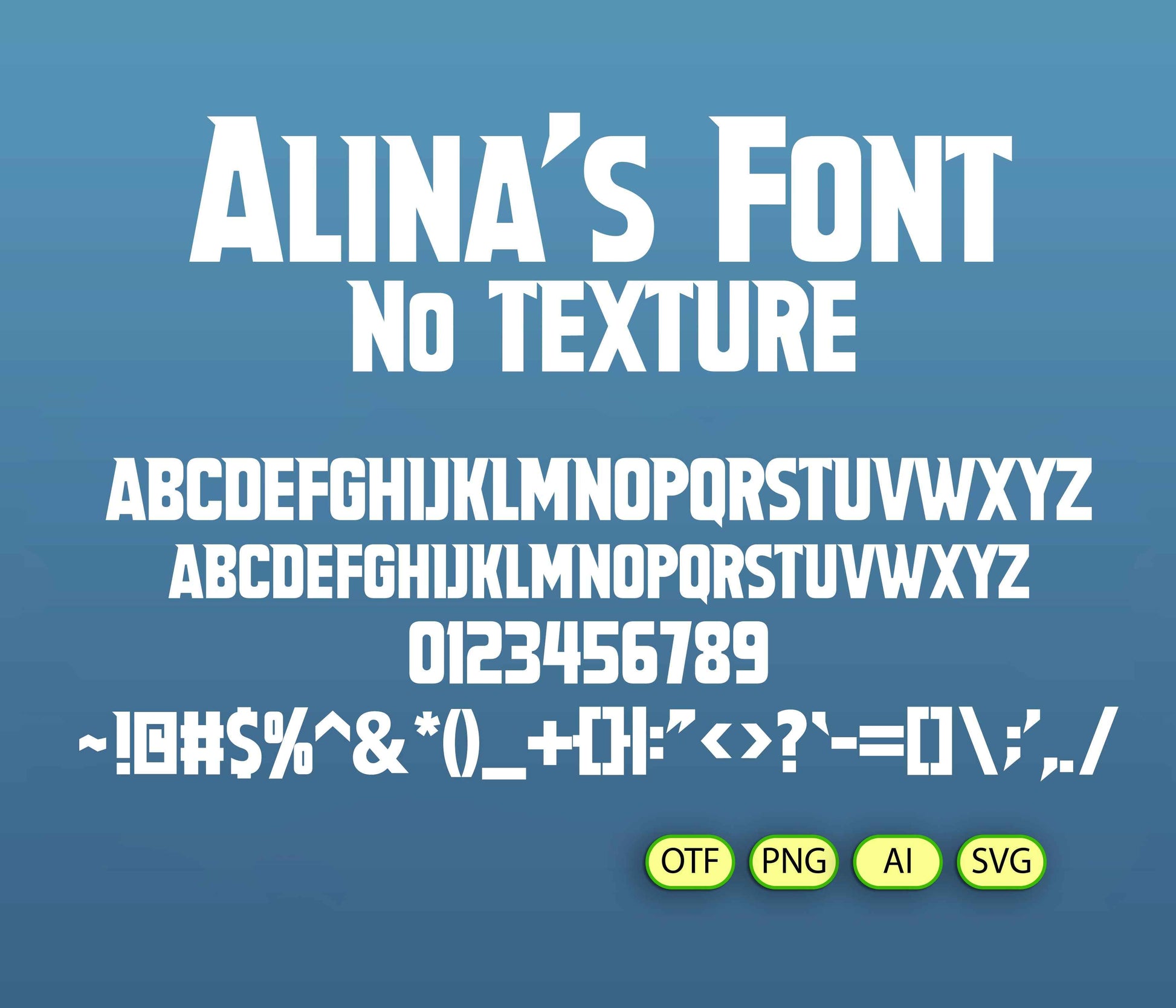
Microscopic Insectoid Heroes Quantum Realm Font
Step into the subatomic world of diminutive champions with our Microscopic Insectoid Heroes Quantum Realm font! This dynamic typeface captures the essence of tiny, bug-inspired heroes who navigate the mysterious quantum dimensions, facing colossal challenges with ingenuity, teamwork, and size-altering technology. Each character in this font radiates the energy, scientific wonder, and mind-bending possibilities of quantum exploration.
What is the Microscopic Insectoid Heroes Quantum Realm font?
Imagine a typeface that embodies the thrilling spirit and sci-fi nature of insect-sized adventurers. Our font features sleek, slightly futuristic letterforms with a touch of quantum distortion, reminiscent of the heroes' ability to shrink and grow. It includes a full set of alphabets, numbers, and special characters, perfect for a wide array of superhero-inspired and cutting-edge science fiction design projects.
What You Can Do With Microscopic Insectoid Heroes Quantum Realm Font
• Comprehensive Character Set: Offers a wide range of characters for complete design flexibility.